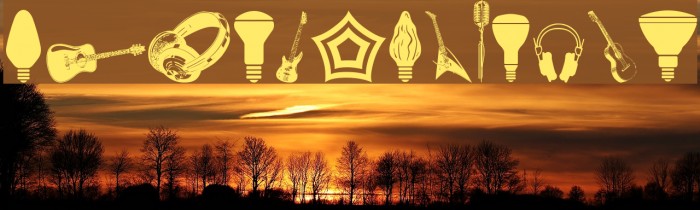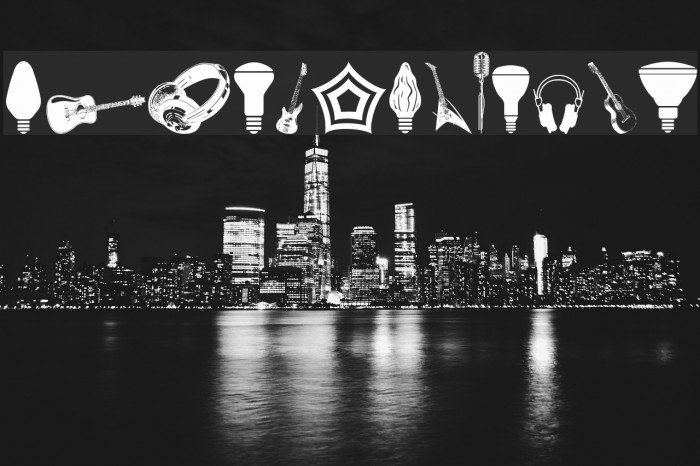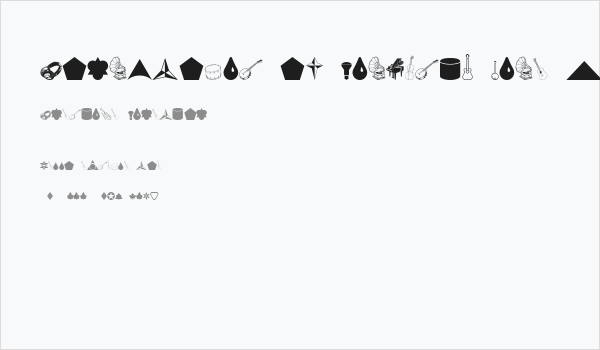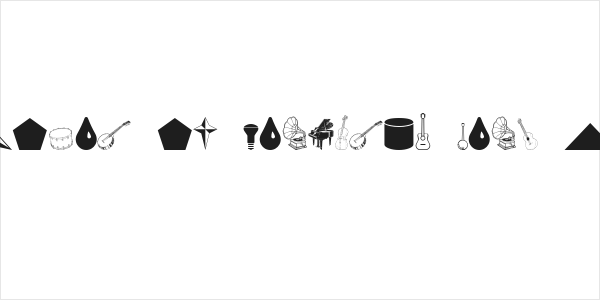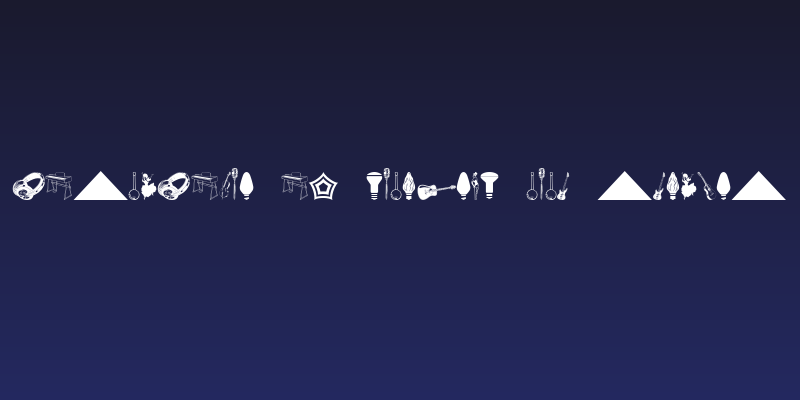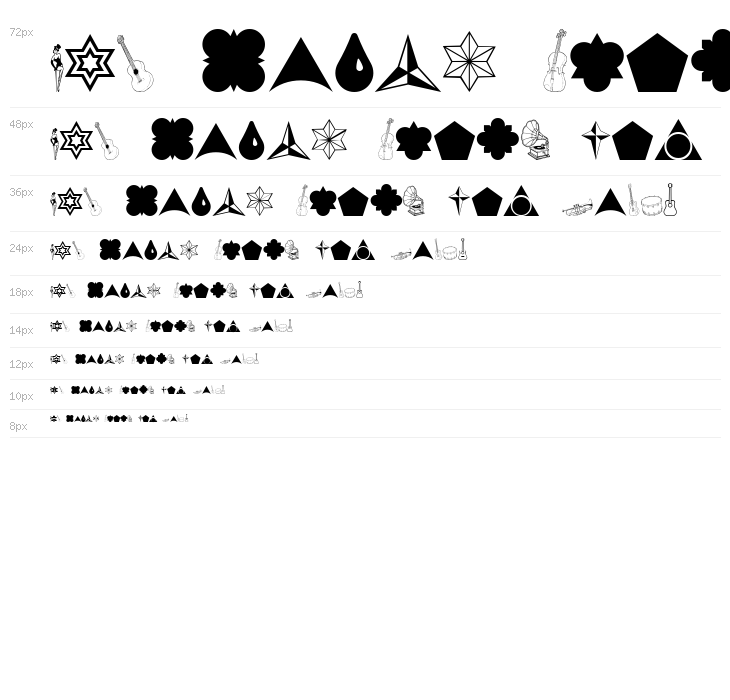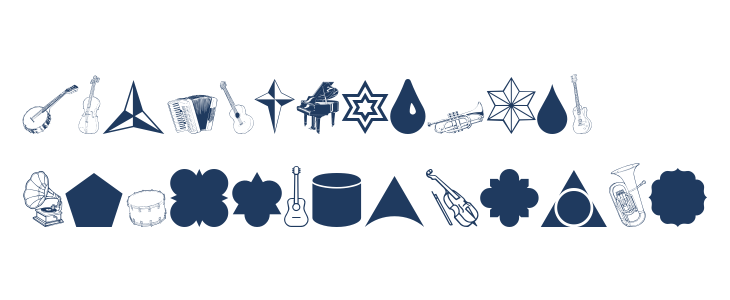
Cornucopia of Dingbats Nine Regular Font
Cornucopia of Dingbats Nine Regular Description
This collection is a diverse assortment of dingbats featuring a variety of musical instruments, geometric shapes, and nature-inspired symbols. The designs range from guitars and violins to stars and leaves, offering a playful and eclectic mix. The symbols are bold and clear, making them suitable for decorative purposes. The style is whimsical and artistic, with a focus on creativity and visual interest. Each symbol is distinct, providing a wide array of options for creative projects.
| Use Case | Logos, Decorative elements, Creative projects |
| Proposed Projects | Ideal for creative projects such as scrapbooking, event invitations, music-themed designs, and educational materials. |